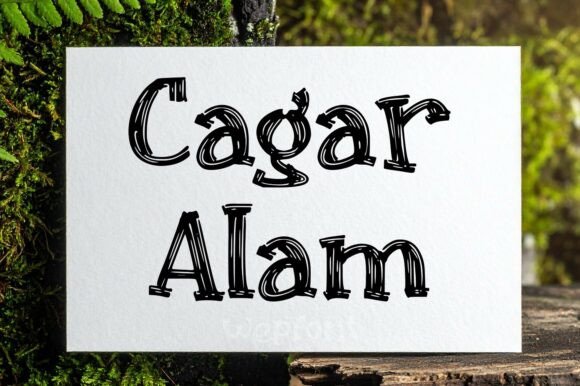
Introducing Cagar Alam: The Wild Beauty of Handwritten Typography
As designers, we’ve all been there – stuck on a project, struggling to find the perfect font that captures the essence of our vision. I recall working on a branding project for an outdoor gear company, determined to convey the rugged yet elegant feel of nature. That’s when I stumbled upon “Cagar Alam,” a robust yet elegant handwritten display font that instantly resonated with my design goals.
A Design Moment of Clarity
It was a moment of clarity – I knew I had found the perfect fit. “Cagar Alam” encapsulates the majestic charm of pristine wilderness and serene, untouched landscapes. This typeface is derived from the serene yet striking flow of the natural world, imbuing designs with an authentic, rugged, and daring personality.
An Honest Review of Cagar Alam
• ✨ Elegant yet rugged: Cagar Alam strikes the perfect balance between refinement and raw natural beauty.
• ✅ Versatile: With a comprehensive collection of standard punctuation marks, this font ensures effective usage in all types of text.
• 🔥 Attention-grabbing: The firm and unique lettering of Cagar Alam ignites a sense of dependability and deep-seated association with the great outdoors.
While Cagar Alam is an exceptional font, there are a few minor considerations to keep in mind:
• ⚠️ Limited use in body text: Due to its display nature, Cagar Alam might not be the best choice for lengthy body text. It’s perfect for headings, titles, and emphasis.
• 🤔 Kerning adjustments: As with any font, some kerning adjustments might be necessary, especially when using it in combination with other fonts.
A Practical Guide to Using Cagar Alam
The Backstory of Cagar Alam
Cagar Alam was inspired by the serene and untouched landscapes of the natural world. The font’s creator aimed to capture the essence of wilderness and pristine environments, infusing the typeface with a sense of ruggedness and elegance.
Q: What is Cagar Alam best used for?
A: Cagar Alam is perfect for designs that require a strong, natural aesthetic, such as outdoor gear branding, conservation projects, and nature-inspired themes.
Q: Does Cagar Alam support OpenType features?
A: Yes, Cagar Alam supports OpenType features, including stylistic alternates and glyphs, allowing for enhanced design flexibility.
Q: Can I use Cagar Alam in combination with other fonts?
A: Absolutely! Cagar Alam pairs well with a variety of fonts. Experiment with different combinations to find the perfect balance for your design.